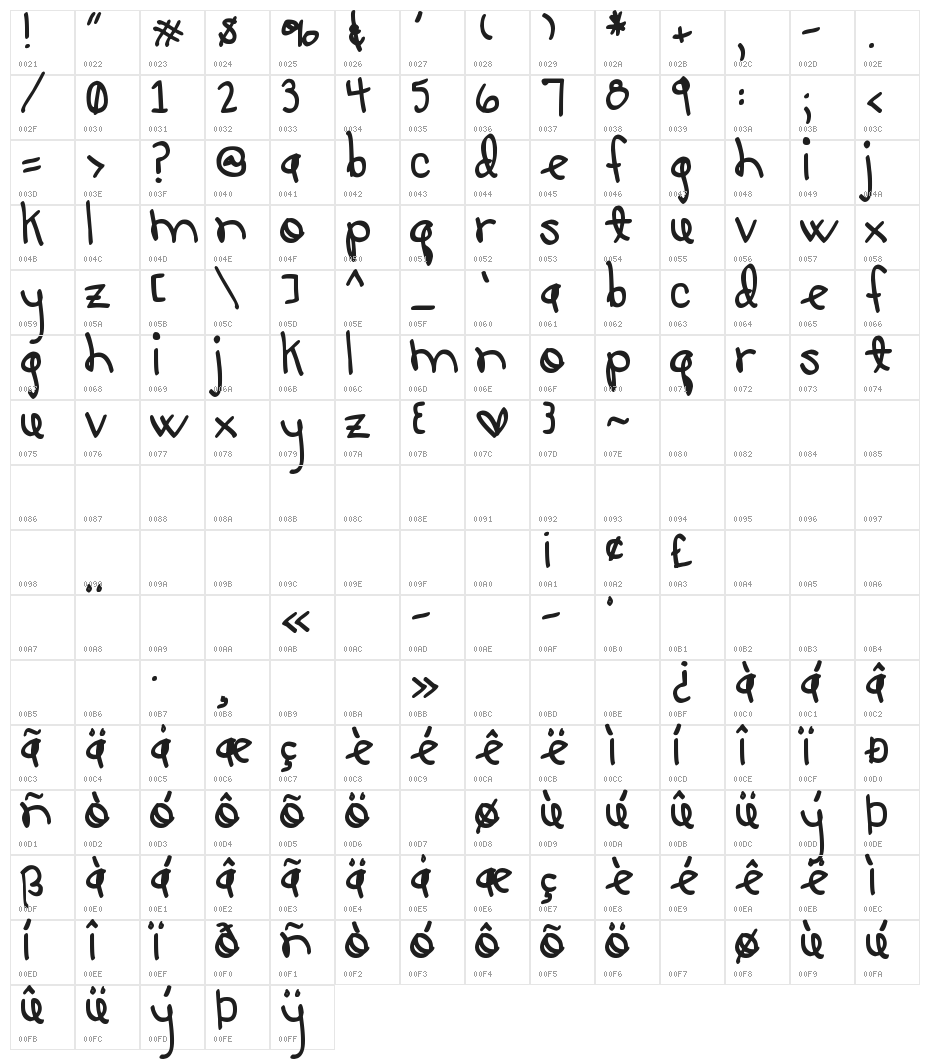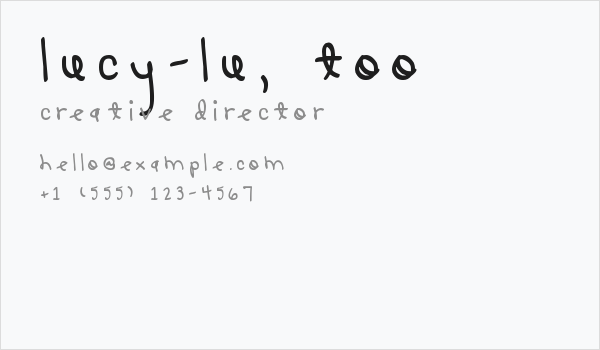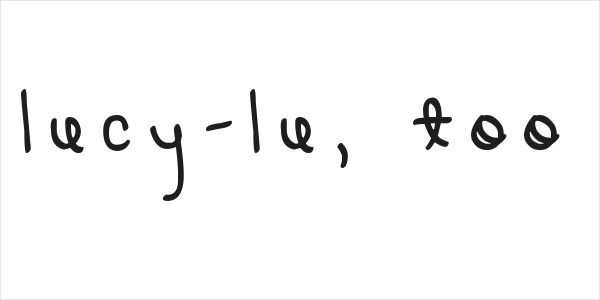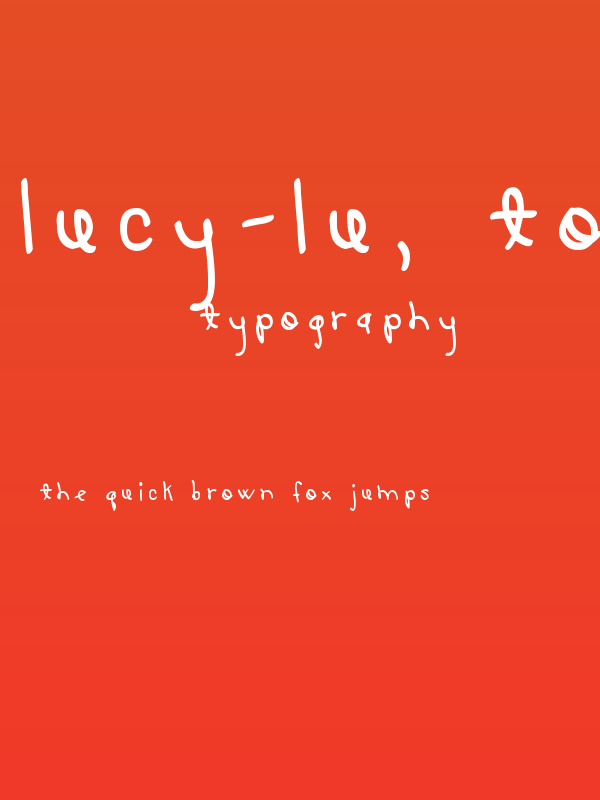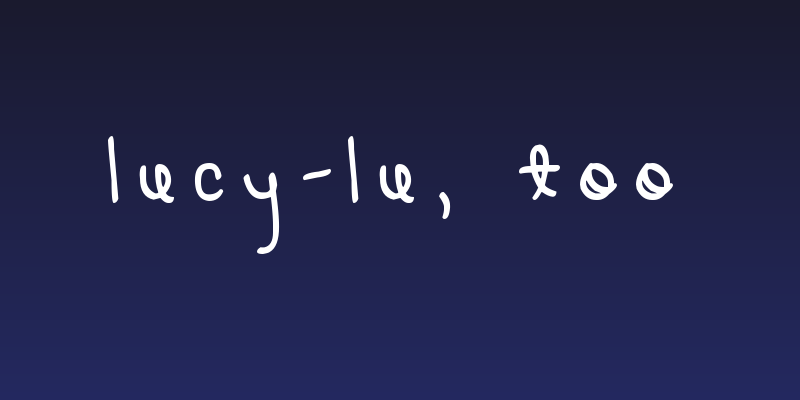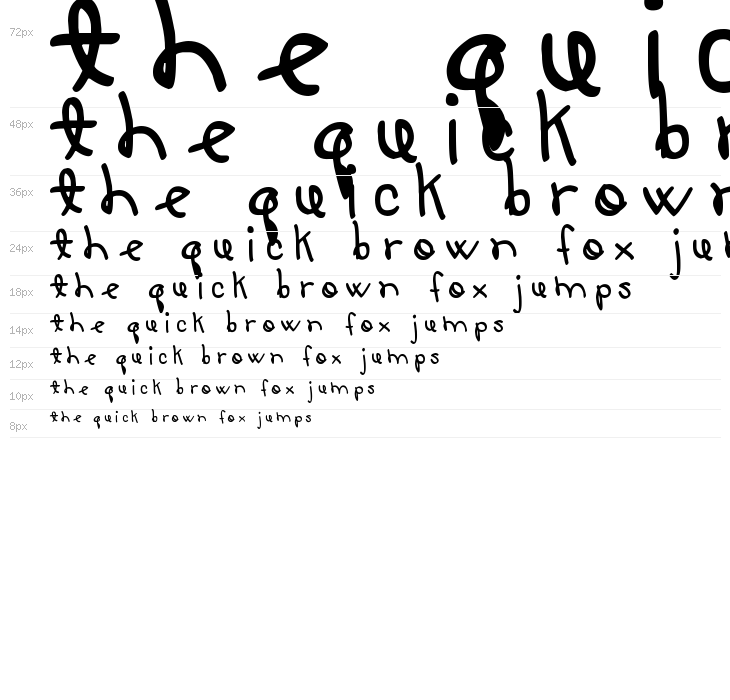
LUCY-LU, TOO Font
LUCY-LU, TOO Description
This font exudes a playful and casual handwritten style, characterized by its irregular and organic letterforms. Each character appears to be drawn with a smooth, continuous stroke, giving it a personal and informal touch. The letters are slightly tilted, adding to the whimsical feel. The numbers and special characters maintain the same playful aesthetic, ensuring consistency throughout. This font is perfect for projects that require a friendly and approachable vibe, such as children's books, personal blogs, or creative invitations. Its unique style makes it stand out, while still being legible and versatile.
Overall StyleCasual, Playful
Use CaseHeadlines, Informal text, Creative projects
Proposed ProjectsIdeal for children's books, personal blogs, creative invitations, and casual branding.